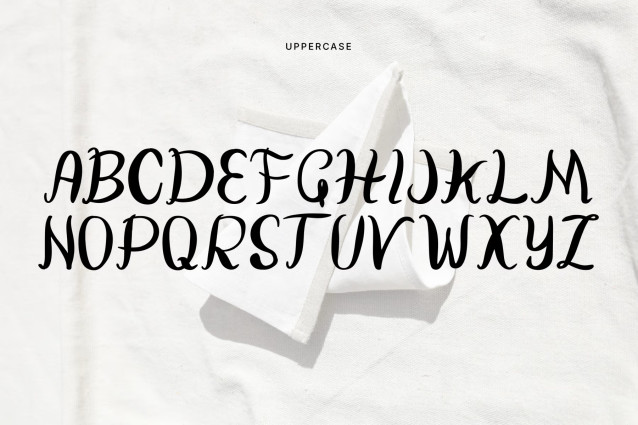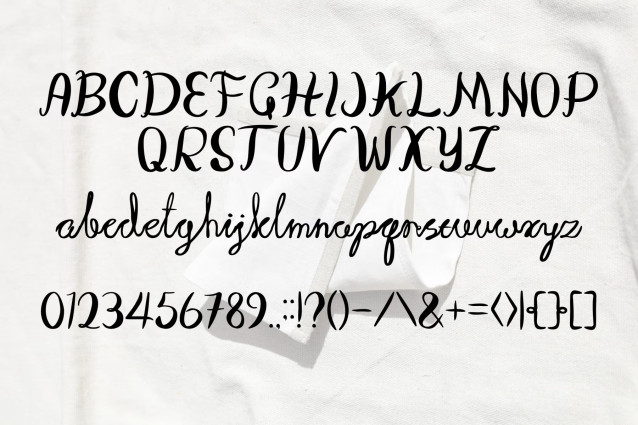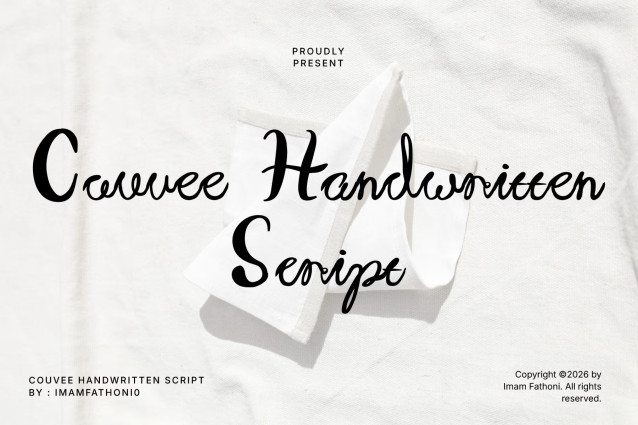
Bring organic warmth, fluid calligraphic charm, and genuine personal handwriting style to your typography with Couvee Handwritten Script! This expressive script font features thick-to-thin brush variation, tall looping capitals, and continuous cursive baselines. Its relaxed, handwritten flow gives titles a customized, craft-lettered feel that connects naturally with your audience.